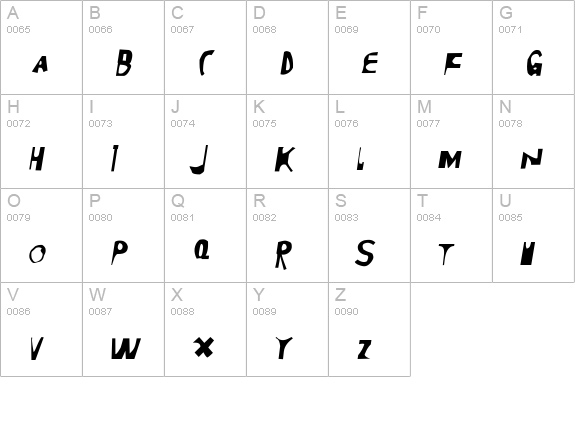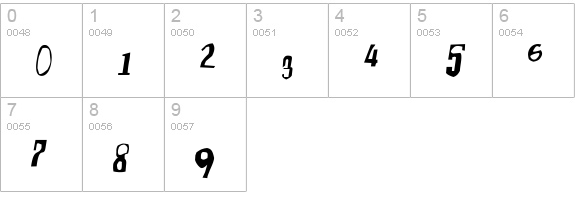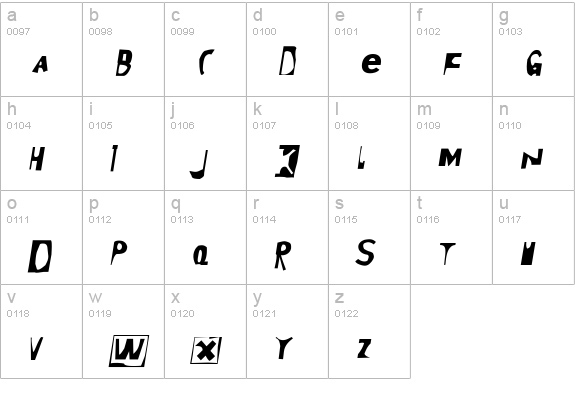
Moore899-ItalicA is a stylish and elegant font that exudes sophistication and charm. Its italicized design adds a touch of flair to any text or design project. The sleek and modern look of this font makes it perfect for a wide range of uses, from branding to invitations to advertising. And the best part? Moore899-ItalicA is completely free to download at FontsMarket.com! This means you can enhance your projects with this beautiful font without breaking the bank. Don't miss out on the opportunity to add a touch of class to your designs with Moore899-ItalicA. Download it now and elevate your creativity to the next level!